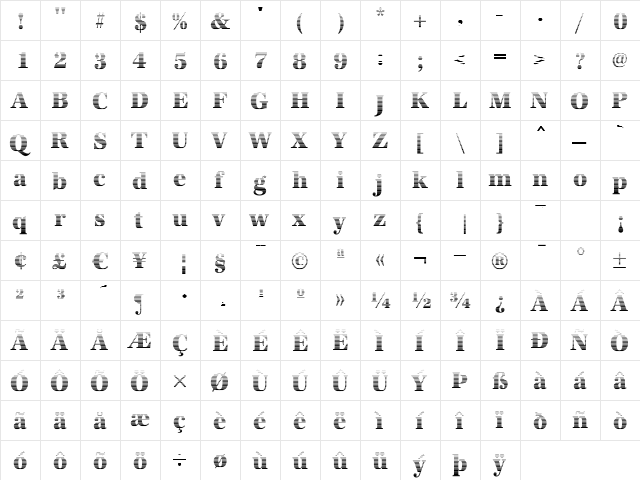
IrisBeckerGradientC-ExBold Normal Font Preview
IrisBeckerGradientC-ExBold Normal
IrisBeckerGradientC-ExBold Normal Font Details
Design Context for IrisBeckerGradientC-ExBold Typeface
IrisBeckerGradientC-ExBold is a composed and adaptable typeface that performs quietly and consistently across a wide range of design contexts. Its bold stroke weight gives it real presence on the page.